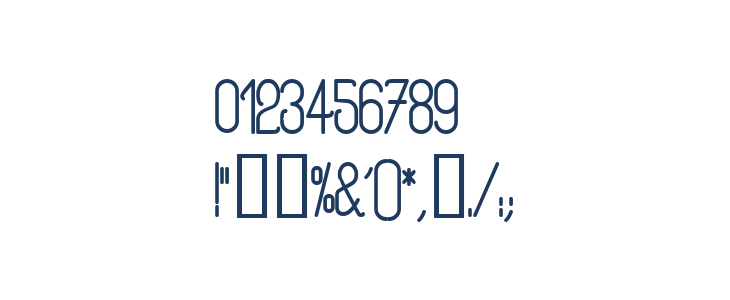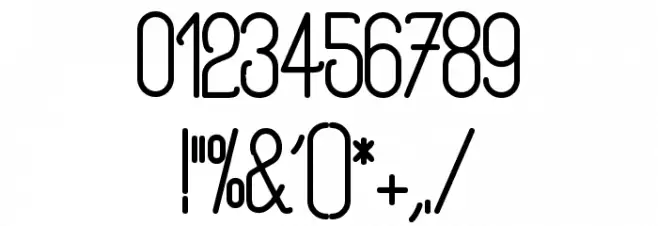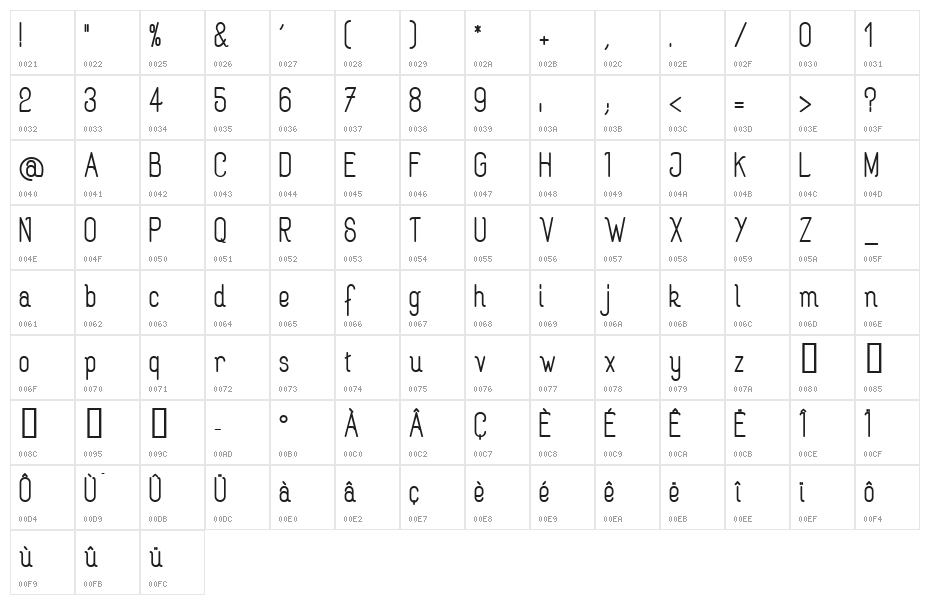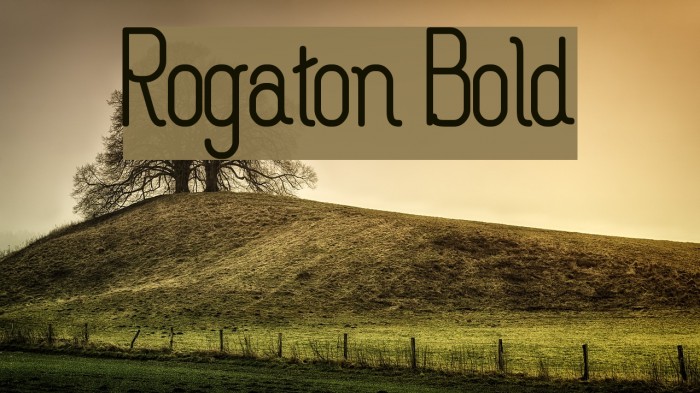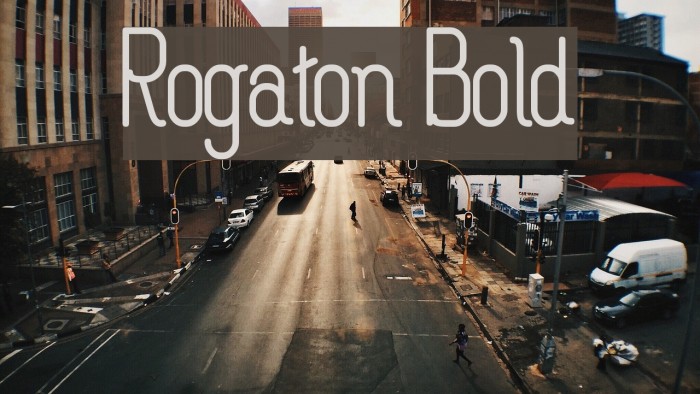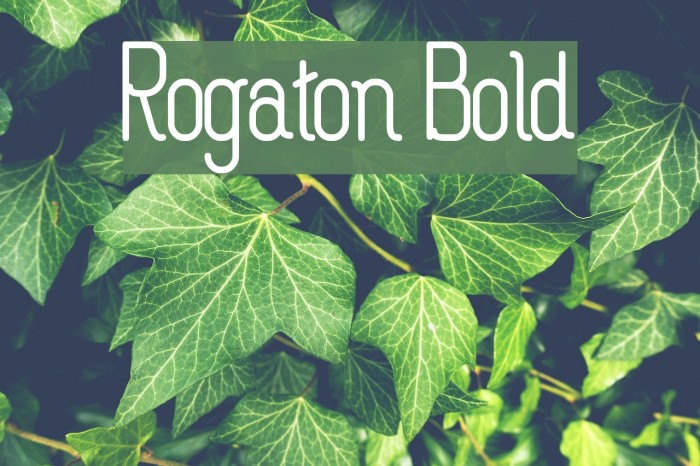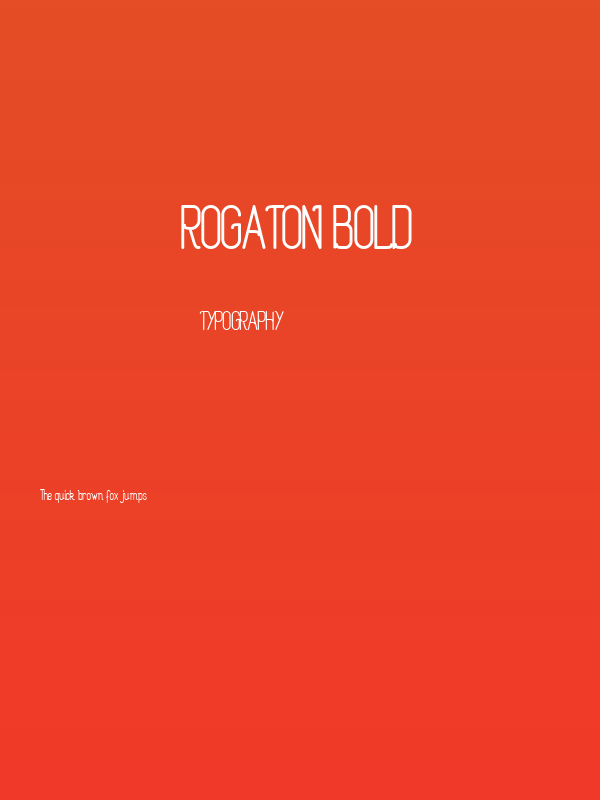
Rogaton Bold Font
Rogaton Bold Description
This font features a modern and sleek design with a monospaced structure, characterized by uniform character width. The letters are tall and narrow, giving it a condensed appearance, while maintaining a clean and legible look. The strokes are consistent in thickness, providing a low contrast, which enhances readability. The overall style is minimalistic, making it suitable for contemporary design projects. The special characters are well-integrated, maintaining the same height and style as the alphabet, ensuring a cohesive look across all text elements.
Use CaseHeadlines, Body text, Logos
Proposed ProjectsIdeal for coding environments, technical documents, modern branding, and minimalist design projects.